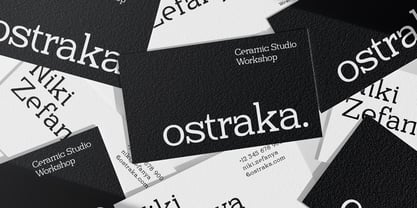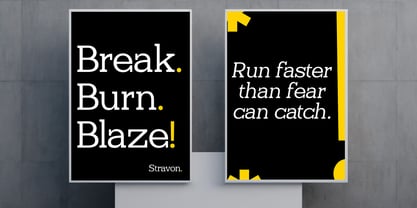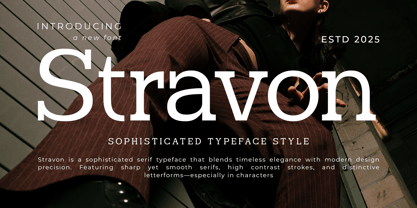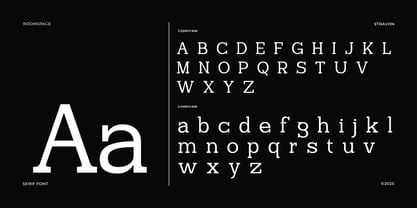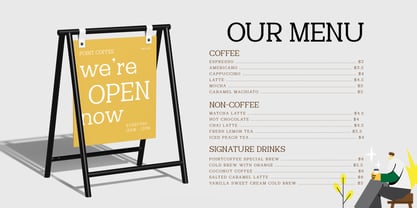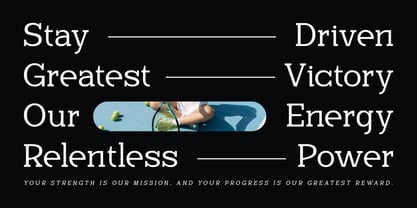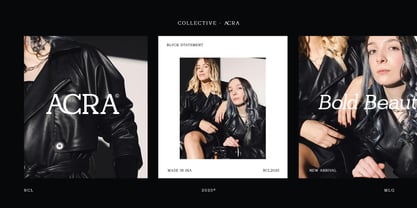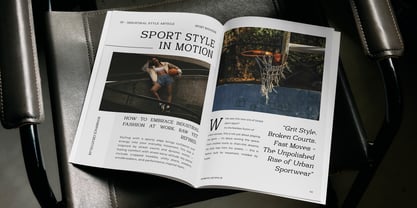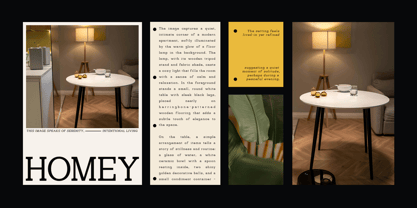
Stragon
by Jafar07
The Stragon Font Family was designed by Bakhrudin Ja'far and published by Jafar07. Stragon contains 2 styles and family package options. More about this family
Stravon is a refined serif typeface designed to elevate your visual identity with a bold and intelligent personality. With its strong contrast, crisp serifs, and elegant curves, this font adds sophistication to any design from luxury branding and fashion editorials to cinematic titles and editorial layouts. Its balanced proportions and clean readability make it highly versatile, fitting both modern aesthetics and classic design standards. Stravon is ideal for professionals seeking a typeface that communicates confidence, authority, and timeless